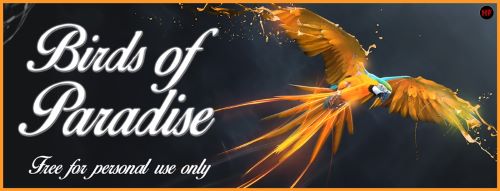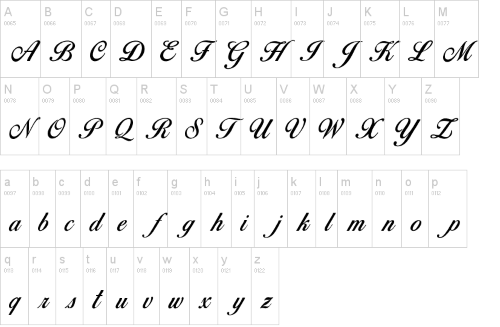
Birds of Paradise Font
Birds of Paradise Font is a stylish revival of a classic typeface originally created by Al Elliot in 1975. With its flowing, retro-inspired letterforms and distinctive decorative flair, it captures the spirit of 1970s design. This font is perfect for logos, posters, headlines, and vintage-themed projects that need elegance, personality, and timeless character.
➤ Font Name: Birds of Paradise
➤ Designer: Herofonts
➤ Style: Script > Calligraphy